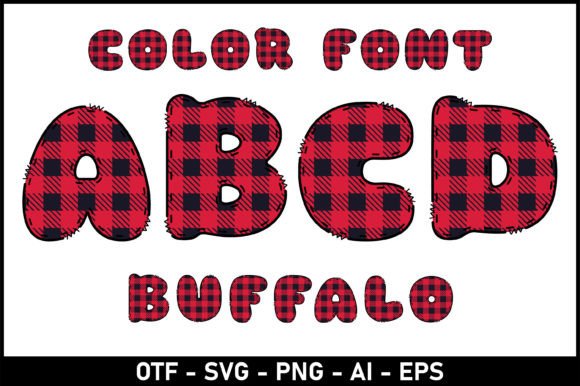
The Playful World of Buffalo Font: A Designer’s Delight
I still remember the time I was working on a children’s book project, and I was on a mission to find the perfect font. The design brief was simple: create a fun, engaging, and easy-to-read book that would captivate young audiences. But, as I scrolled through font after font, I just couldn’t seem to find the right fit. That was until I stumbled upon the Buffalo Font. ✨
Its playful, whimsical vibe instantly caught my attention, and I knew I had found the perfect match. In this article, I’ll share my experience with the Buffalo Font, its features, and how to make the most of it in your designs.
- ✨ The Buffalo Font is perfect for designs that require a playful touch, such as children’s books, posters, invitations, and greeting cards.
- ✅ The font comes in both black and color versions, offering flexibility in design.
- ✅ The font is easy to read, making it perfect for body text in children’s books and other designs.
While the Buffalo Font is an excellent choice for many designs, there are a few things to keep in mind:
The Designer Inspiration Behind Buffalo Font
The Buffalo Font was inspired by the playful and artistic vibe of children’s books and designs. Its creator aimed to create a font that would be both fun and easy to read, making it perfect for a wide range of designs.
| What is the Buffalo Font? | The Buffalo Font is a playful, whimsical font perfect for designs that require a fun touch. |